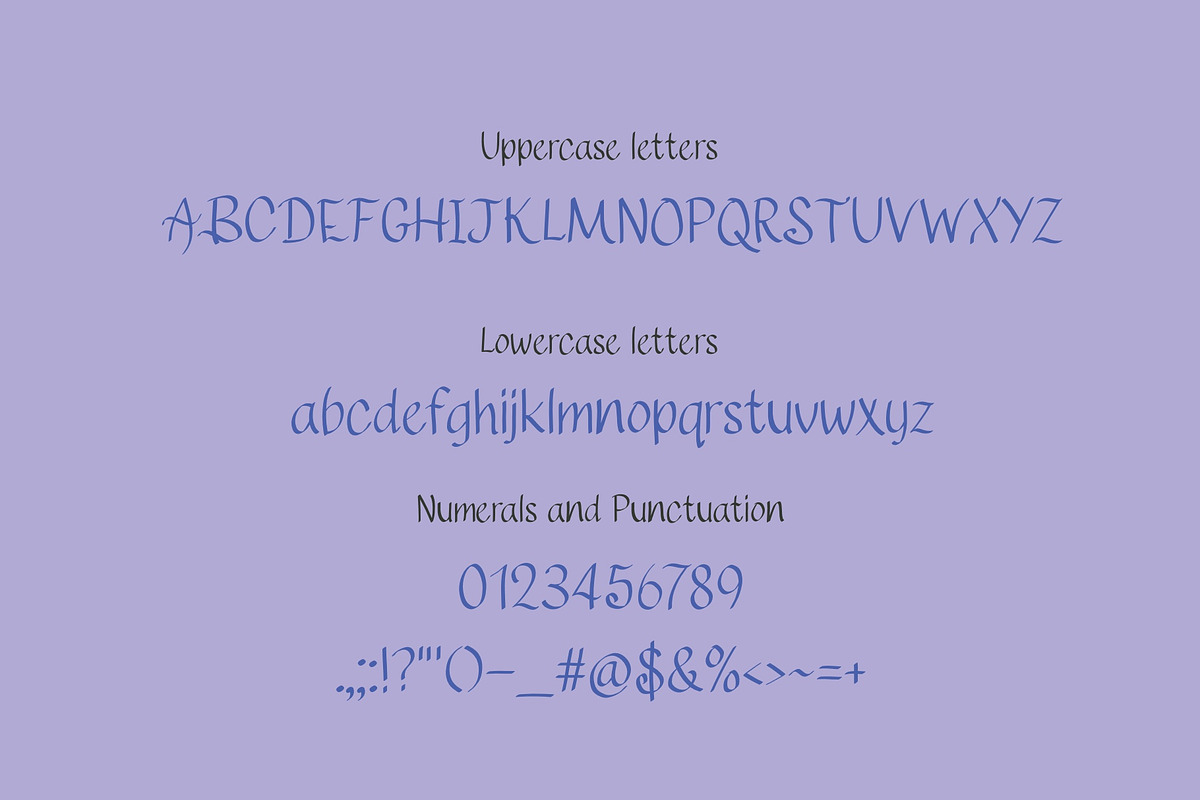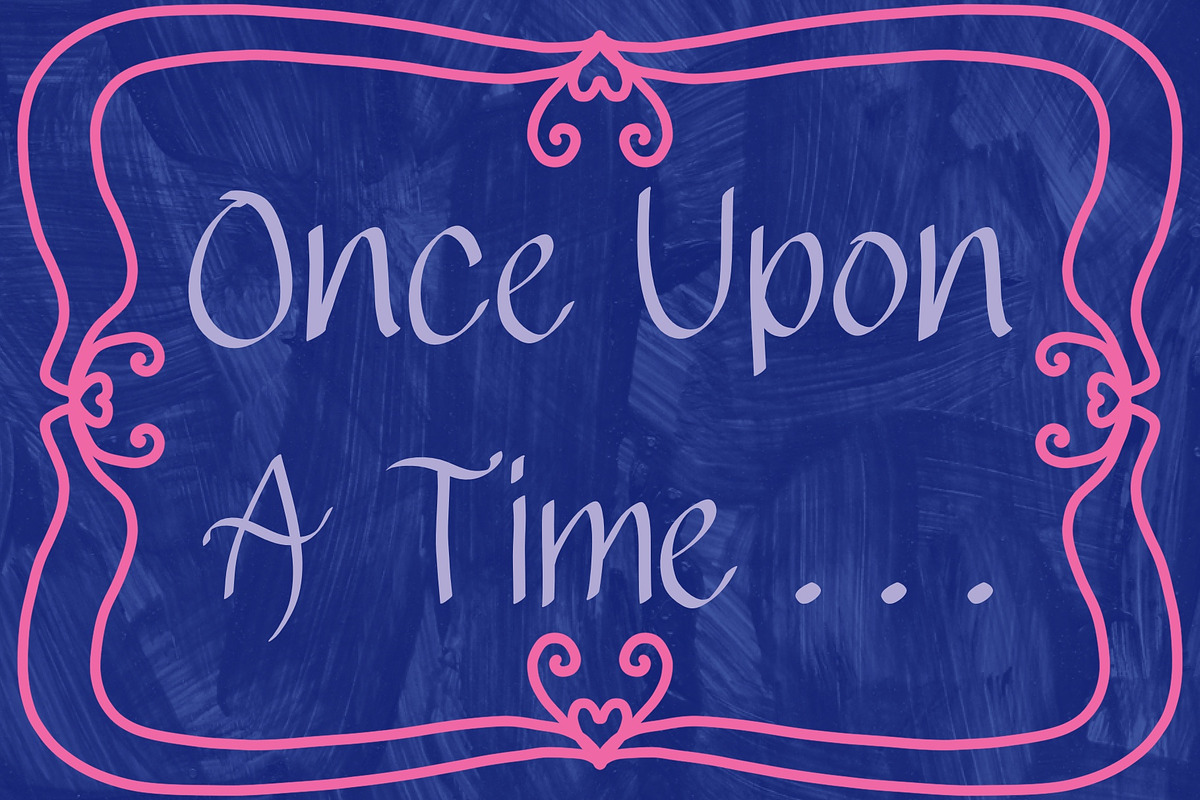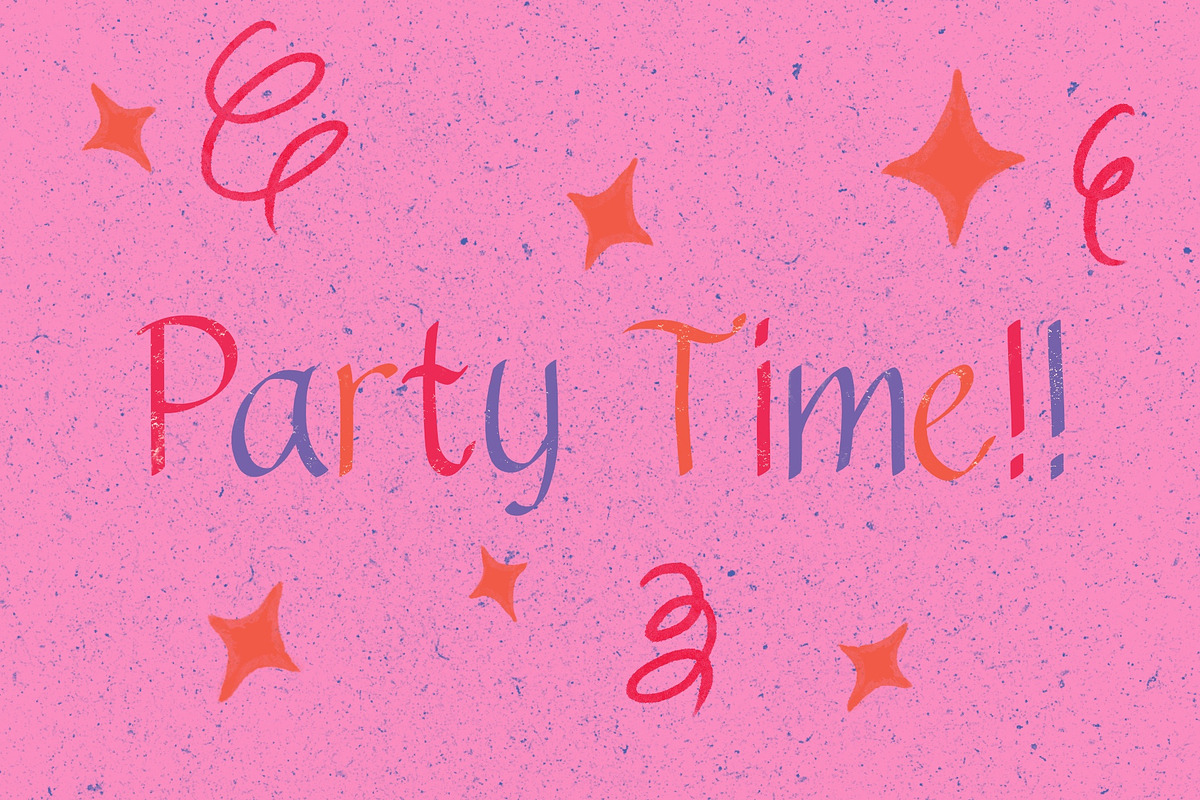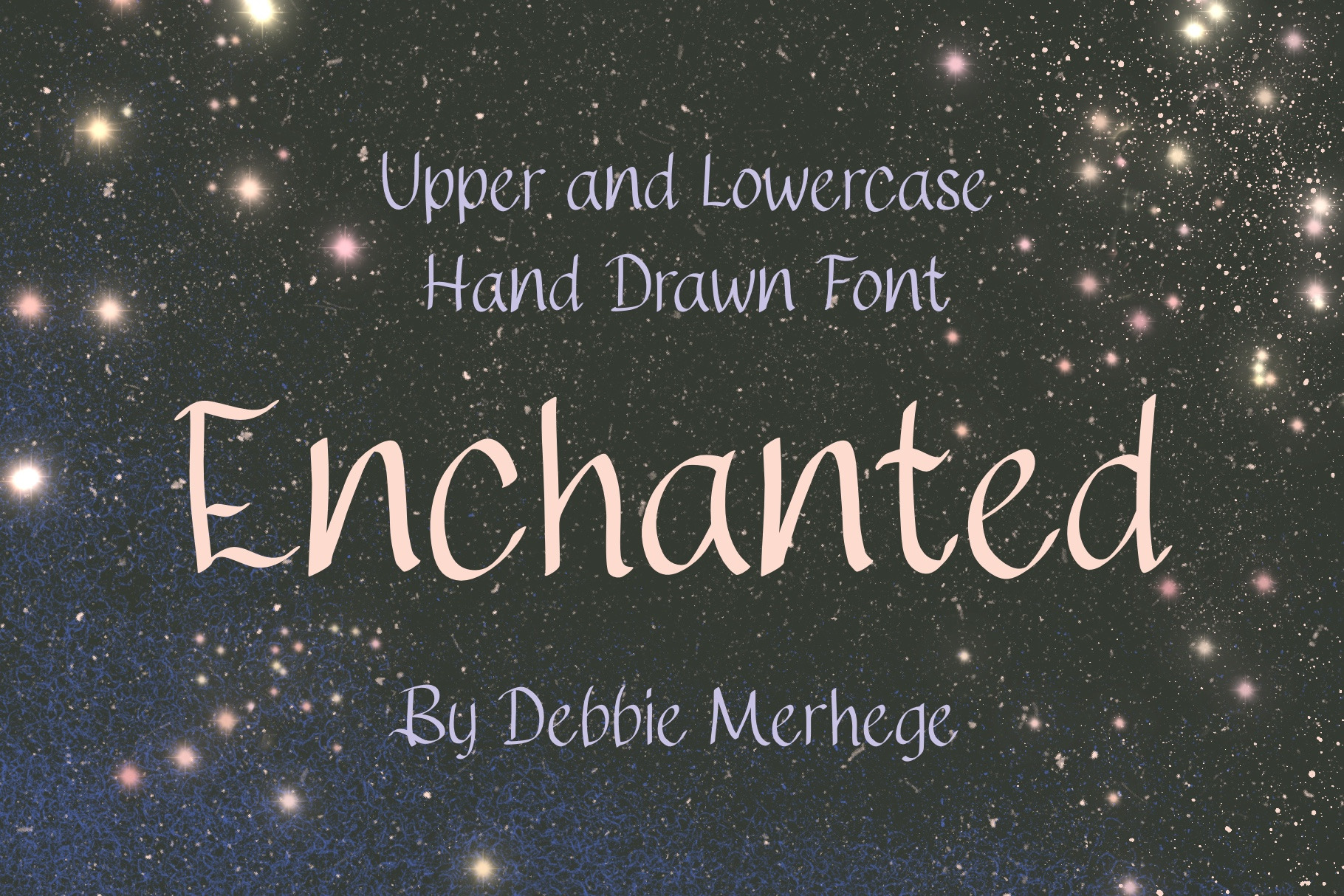
Enchanted - a hand drawn font
Enchanted is a fun and magical hand drawn font. It’s perfect to add a unique style to your cards, artwork and more.
This is an upper and lowercase font with characters, punctation and symbols.